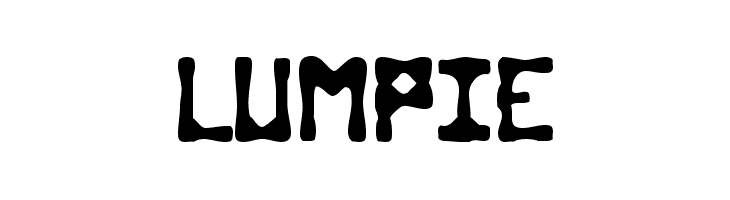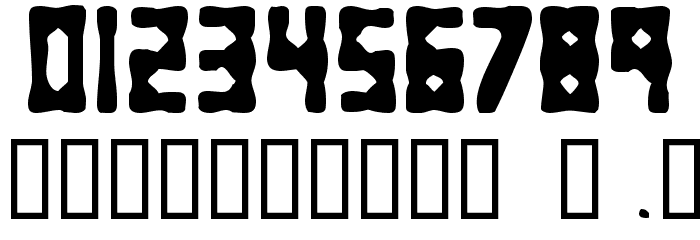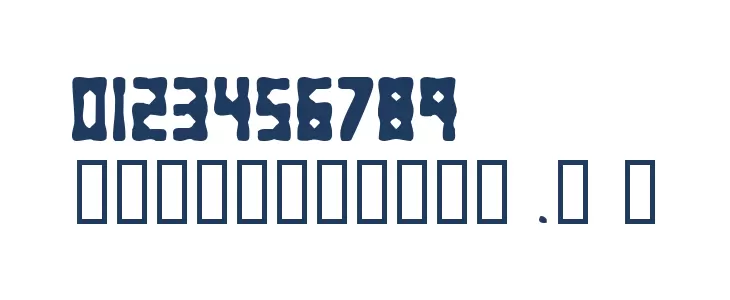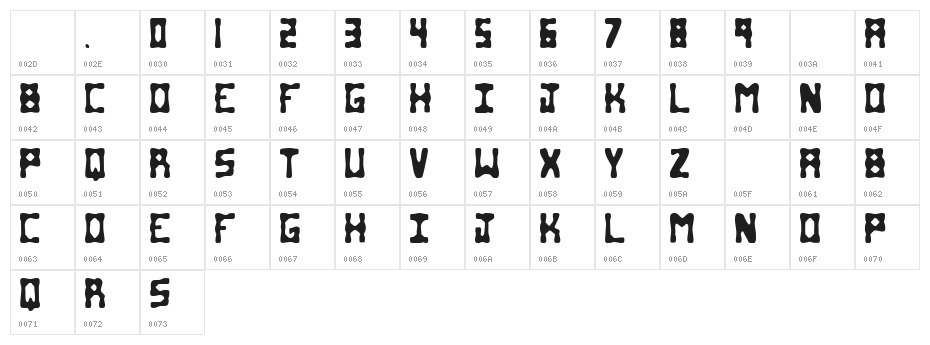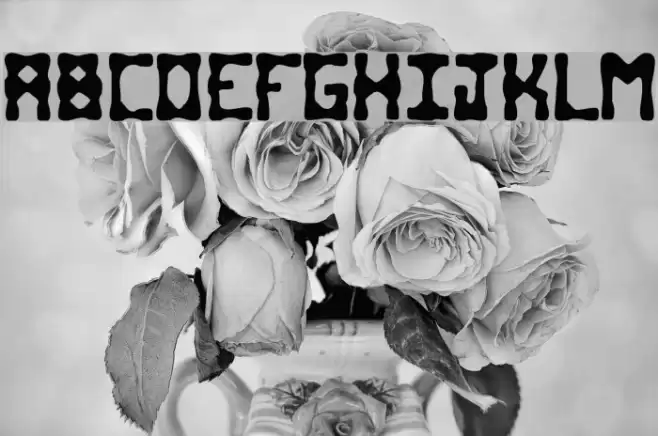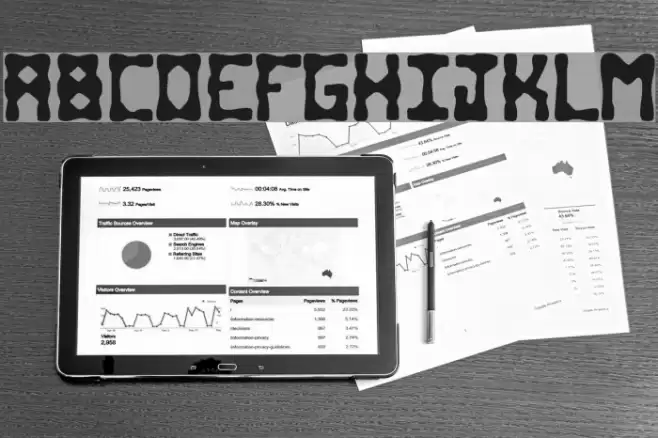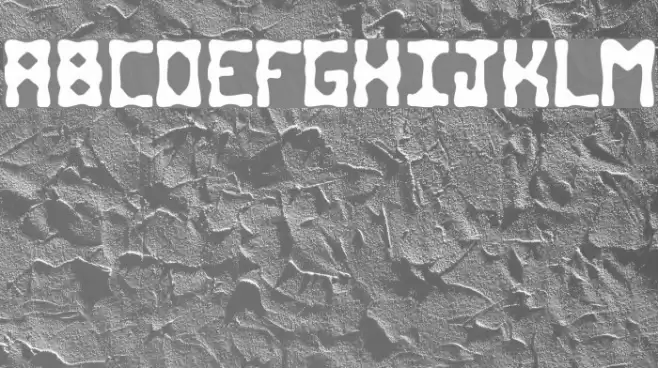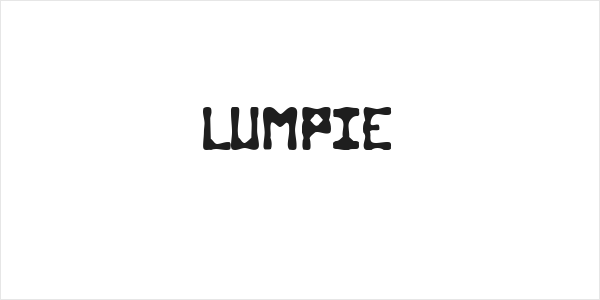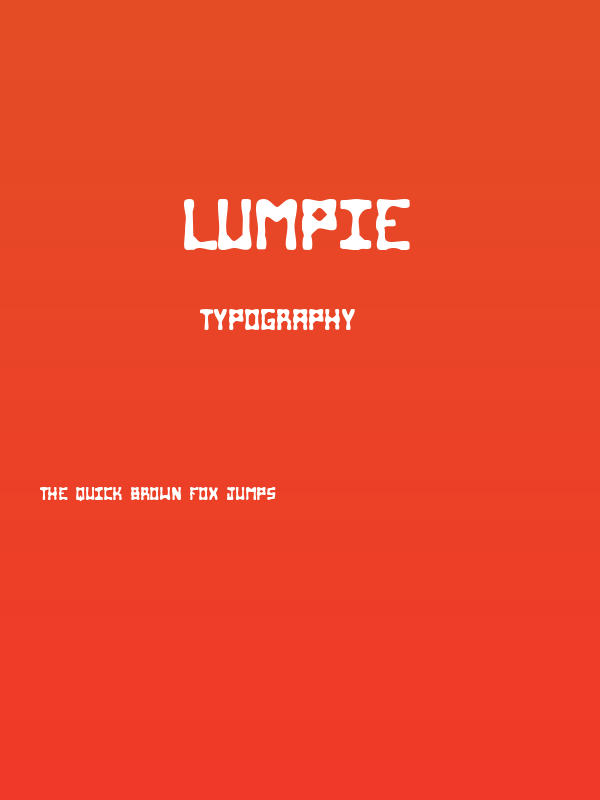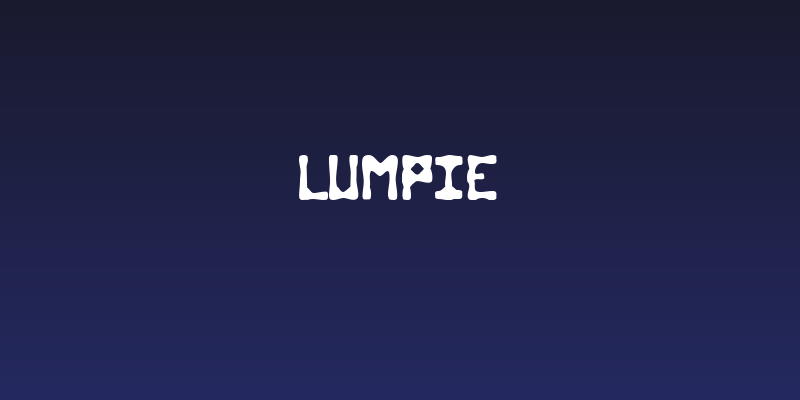
Lumpie Font
Lumpie Description
This font features a playful and irregular design, characterized by its bold and chunky letterforms. Each character appears to have a hand-drawn quality, with uneven edges and a slightly organic feel. The strokes are thick and consistent, giving the font a strong presence. The overall appearance is whimsical and informal, making it suitable for creative and fun projects. The uppercase and lowercase letters maintain a consistent style, while the numbers and special characters complement the overall design. This font is ideal for projects that require a unique and eye-catching typeface.
Overall StylePlayful, Whimsical
Use CaseHeadlines, Posters, Creative projects
Proposed ProjectsIdeal for children's books, playful branding, posters, and creative design projects.